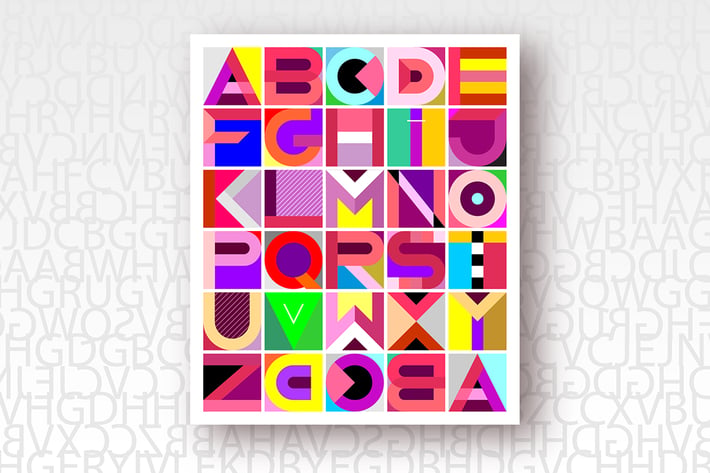
Multicolored Decorative Geometric Font
Vector multicolored decorative geometric font design. Abstract art graphic illustration featuring the letters of the alphabet from A to Z.